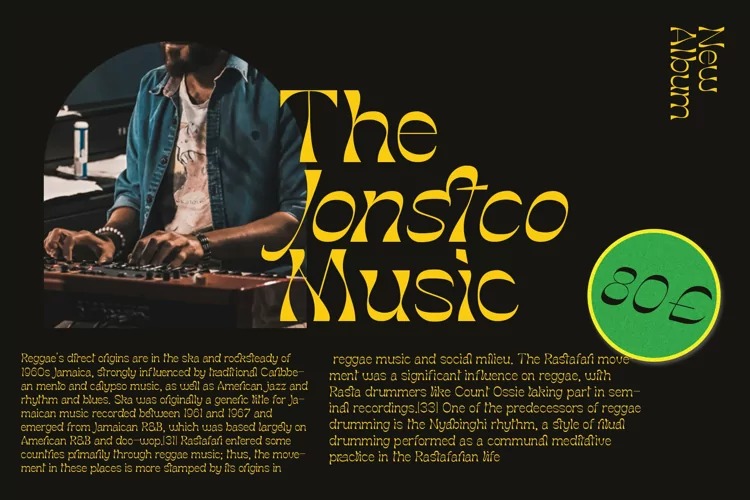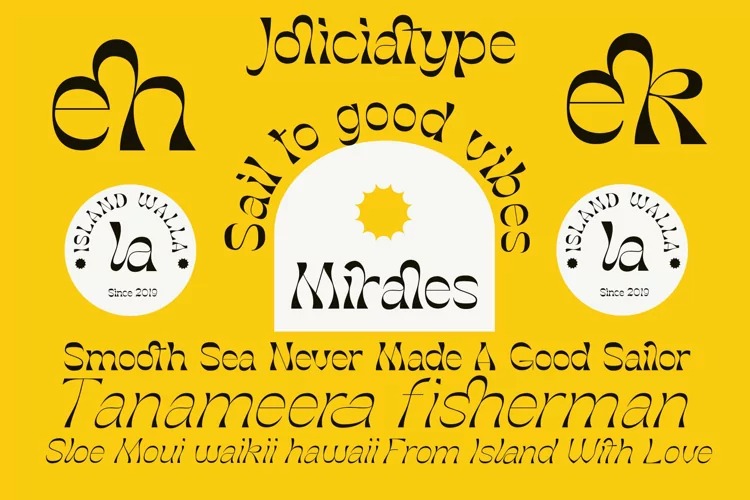
Molex Shoora Font
Molex Shoora Display Font
This is a euphoric ligature rich retro display font with OpenType features that were created to help each word and letter connect and flow perfectly. You can use this font for many purposes such as vintage logo, mug, embroidery, prints, display, short text, packaging, cards, emblem, signage, and many more!